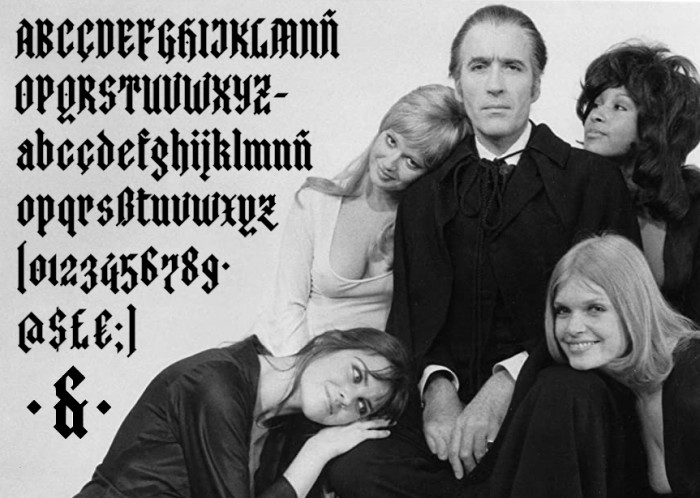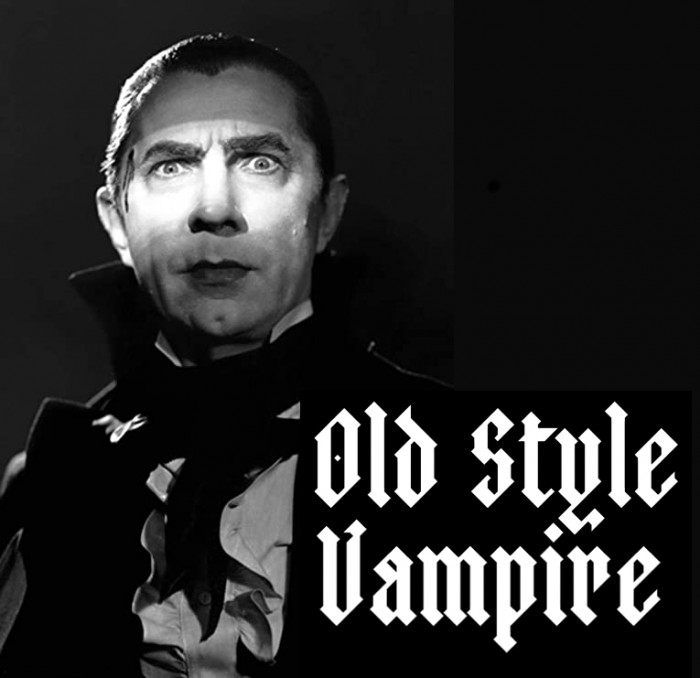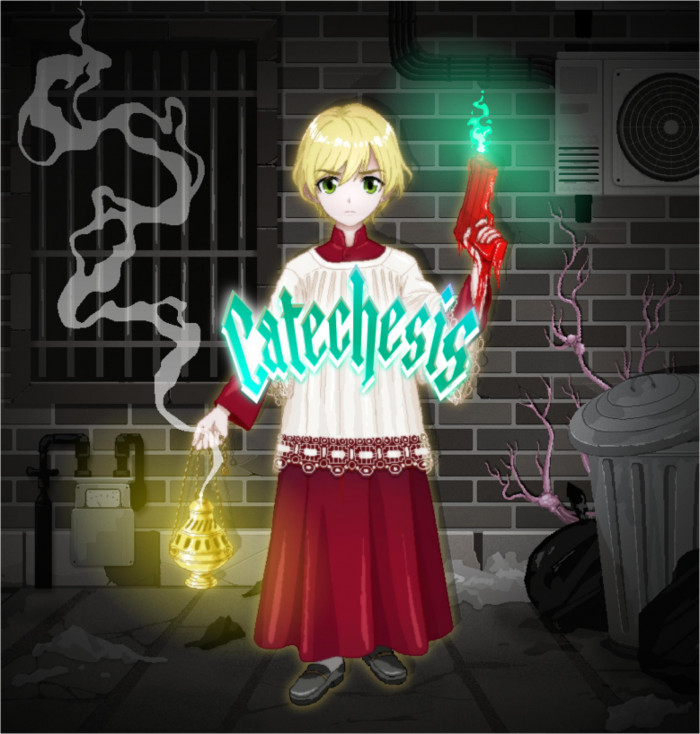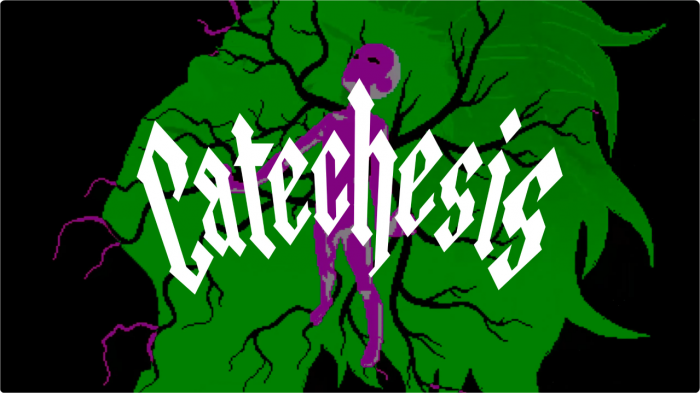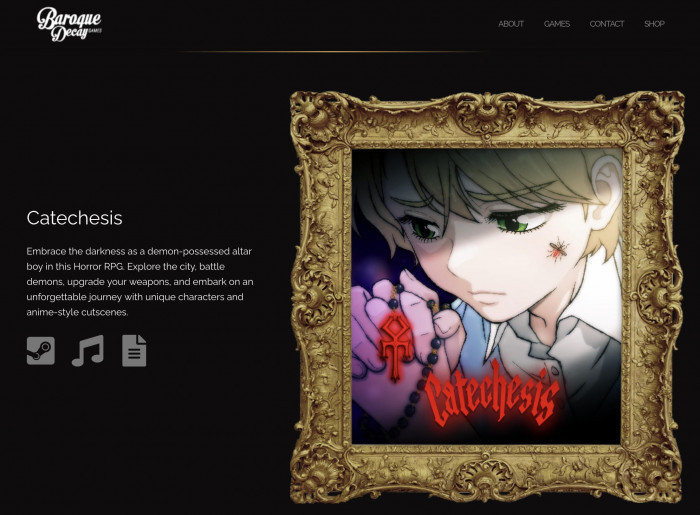
Another "genre" font, this one for the invaluable old style vampire people.
BTW, sinople is the name of the green colour in heraldic.
Wow! What a beautiful blackletter. It looks very well designed, complete with extended Latin characters, and deliver legible text pleasant to read. Congratulations. 10/10
p.s.: zinople could have been a winning entry for the Blackletter Comp.
Very non-boring blackletter. And not very traditional, the idea of blackletter was in a uniform texture, the letters were written very tightly to each other. This is similar to how now with geometric grotesque display fonts make the small minus letter-spacing.
My, my, what a beautiful blackletter.  I cloned it to have a good look and study it.  I'll also use it (yours). Thanks!
My zinople on real life! Used on the game "Catechesis" by the great team from Baroque Decay Games. I'm very honoured, thanks pals!